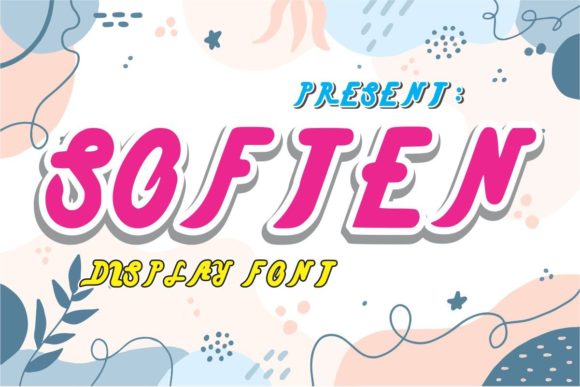
**Soften: The Font of Architectural Dreams**
Prepare to be captivated by Soften, the elegant display font that will transform your designs into architectural masterpieces. Its graceful curves and sharp angles evoke the allure of modern architecture, making it the perfect choice for designers who dare to dream big.
**Build a World of Wonder**
With Soften, your designs will soar to new heights. Use it to craft blueprints that ignite your imagination, create presentations that captivate your audience, or build greeting cards that convey heartfelt messages with a touch of sophistication.
**Elevate Your Creativity**
Soften is not just a font; it's a gateway to unlocking your creative potential. Its versatility knows no bounds, allowing you to seamlessly blend it into any design project. From ethereal wedding invitations to eye-catching marketing materials, Soften adds a touch of timeless elegance that will leave a lasting impression.
**Craft Designs with Precision**
Every stroke of Soften is meticulously crafted, ensuring that your designs are executed with precision. Its clean lines and balanced proportions create a harmonious visual experience, making it the ideal choice for projects that demand clarity and sophistication.
**Unleash Your Architectural Vision**
Soften is the essential tool for architects, designers, and dreamers who seek to leave their mark on the world. Its ability to capture the essence of architectural beauty makes it the perfect companion for realizing your boldest design visions.